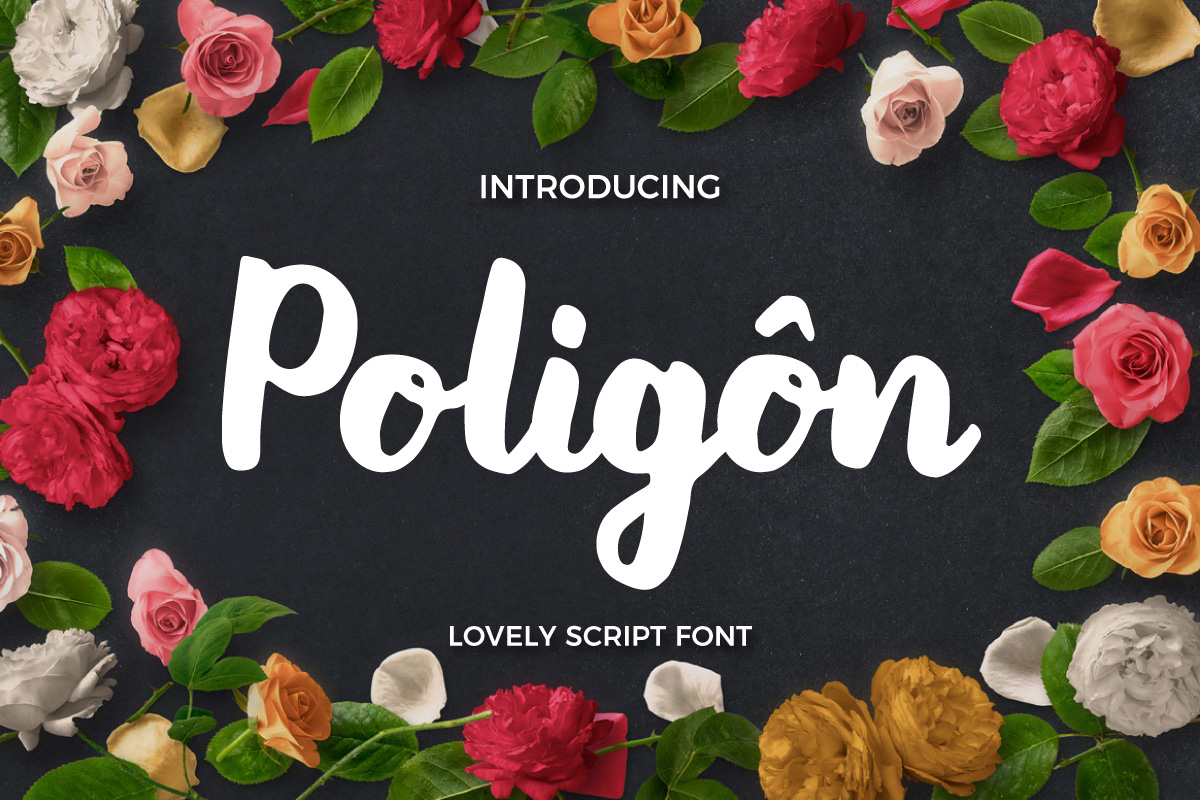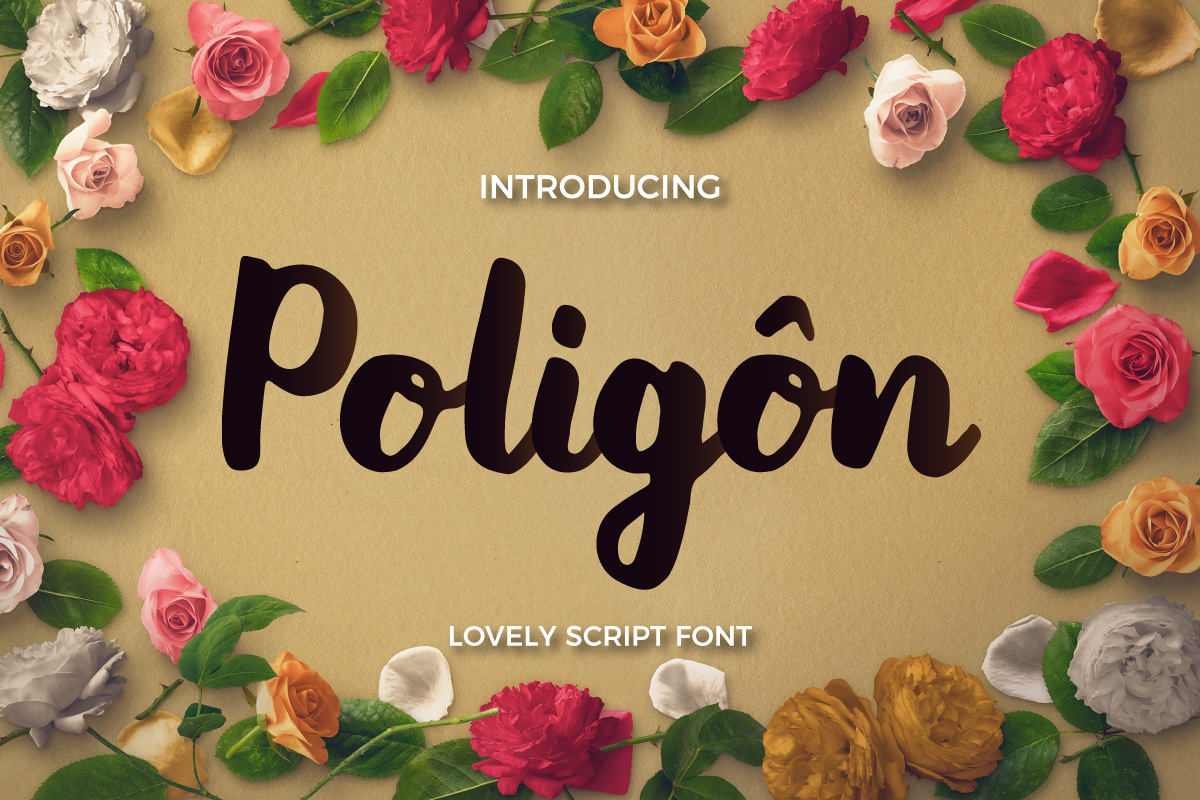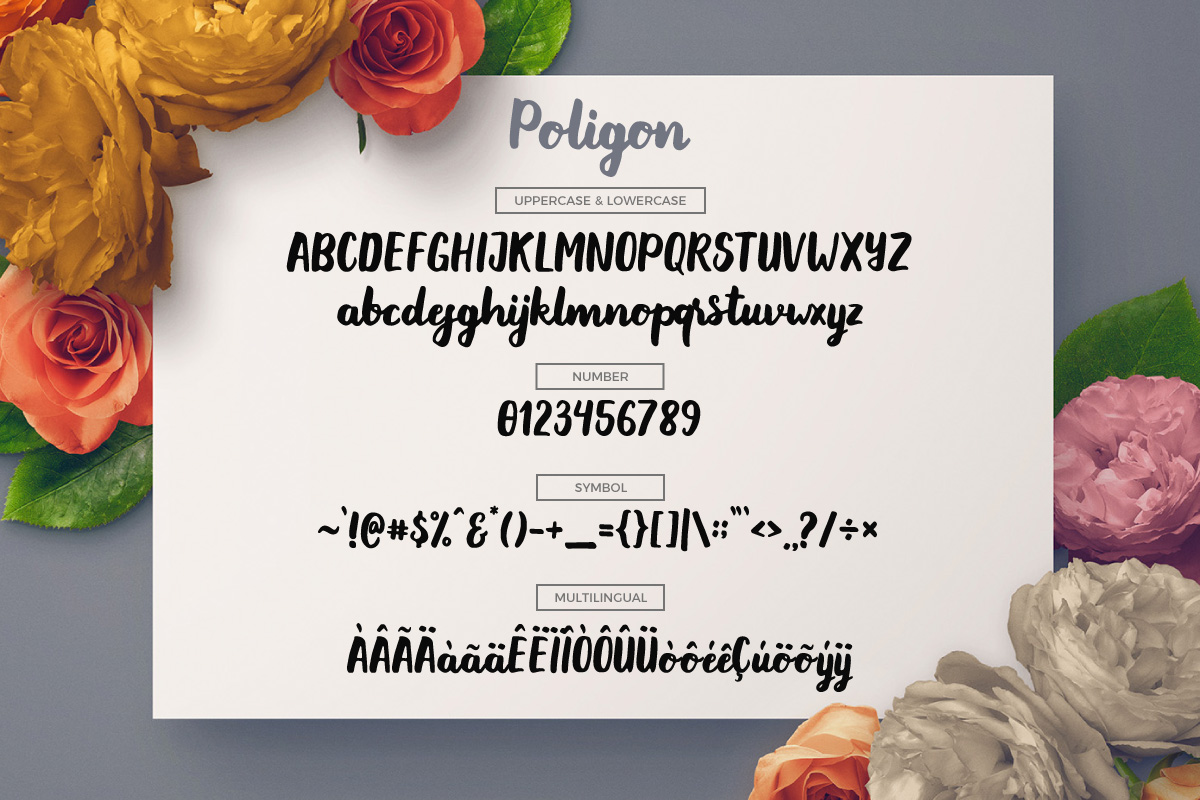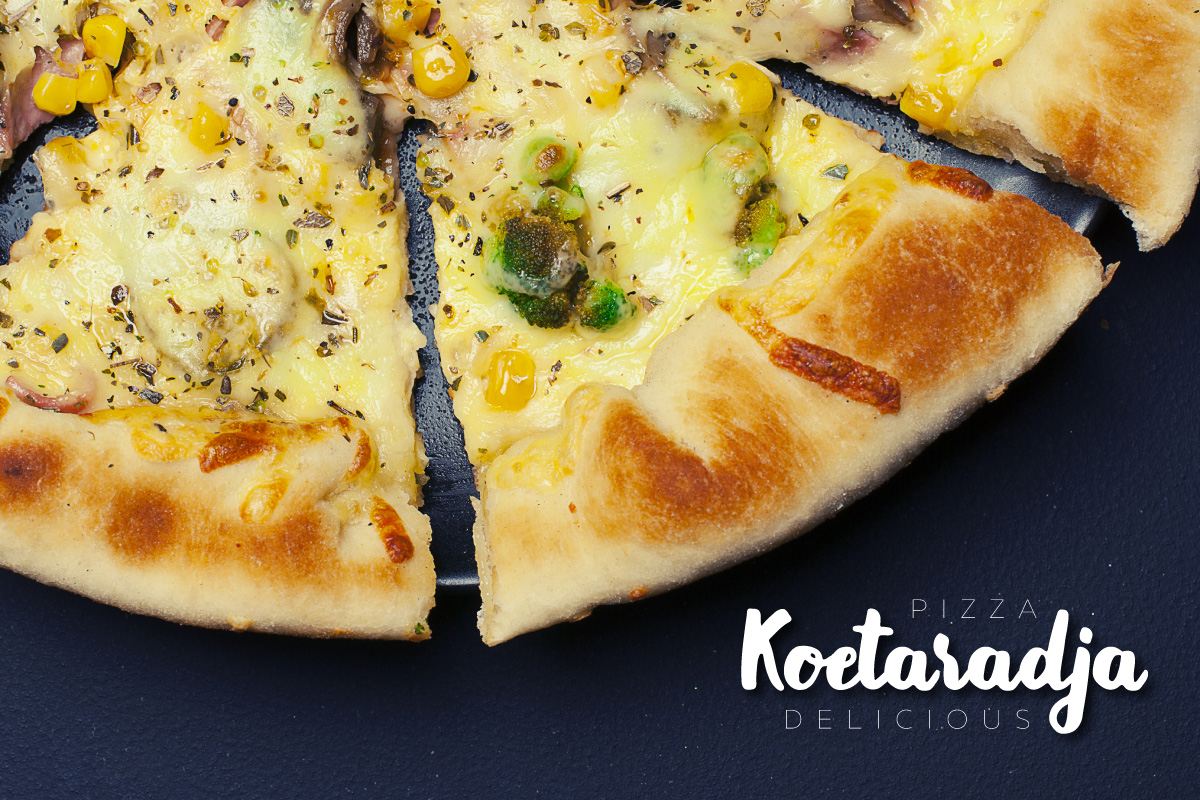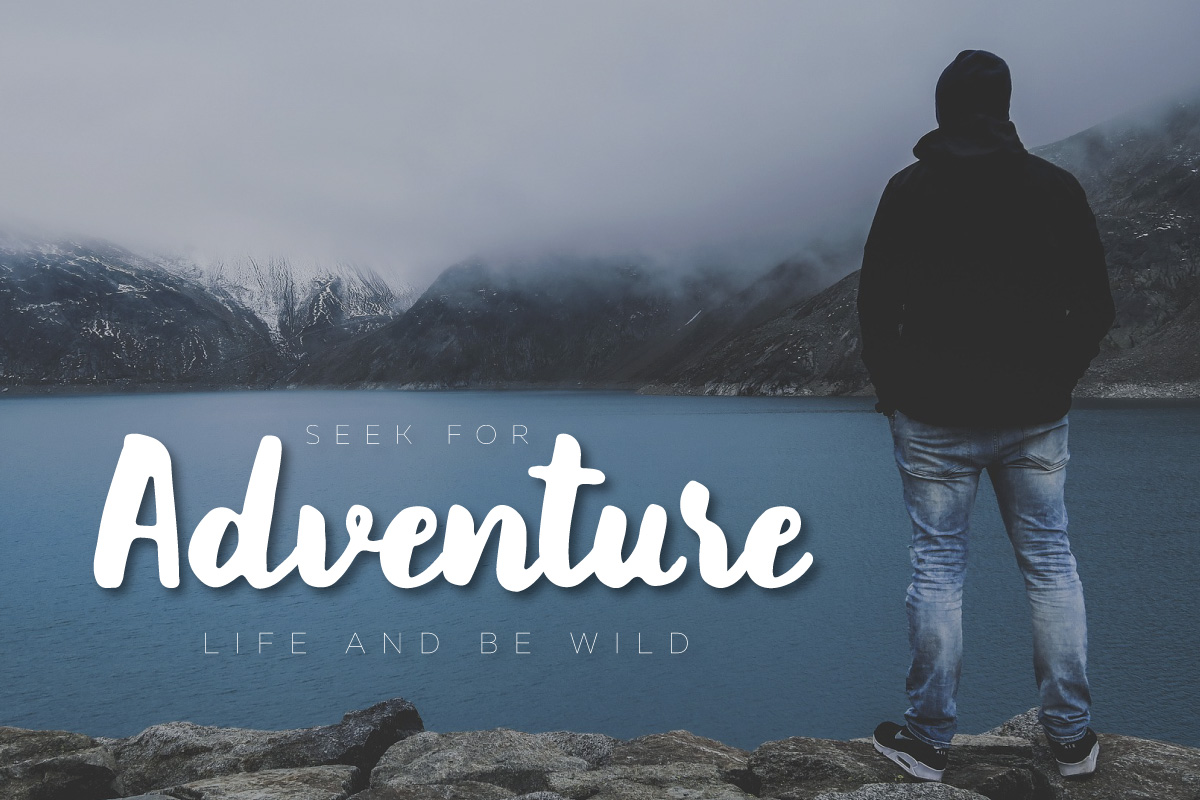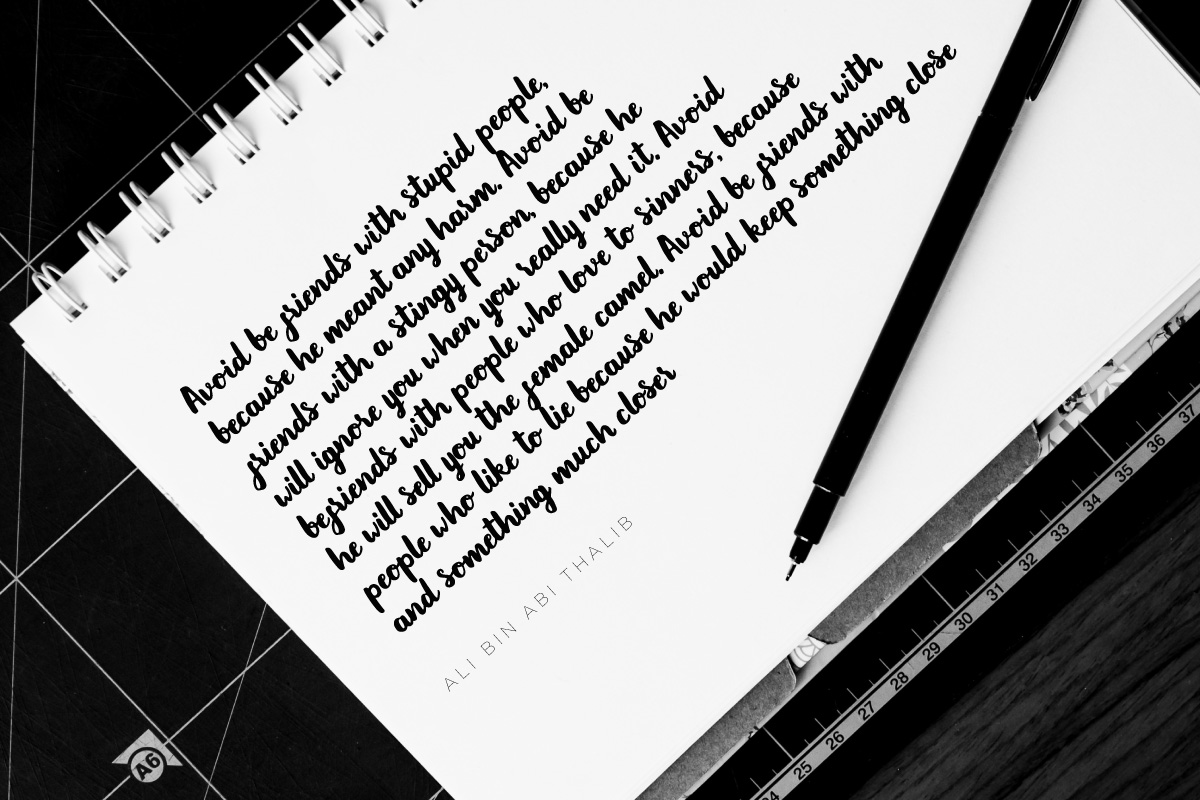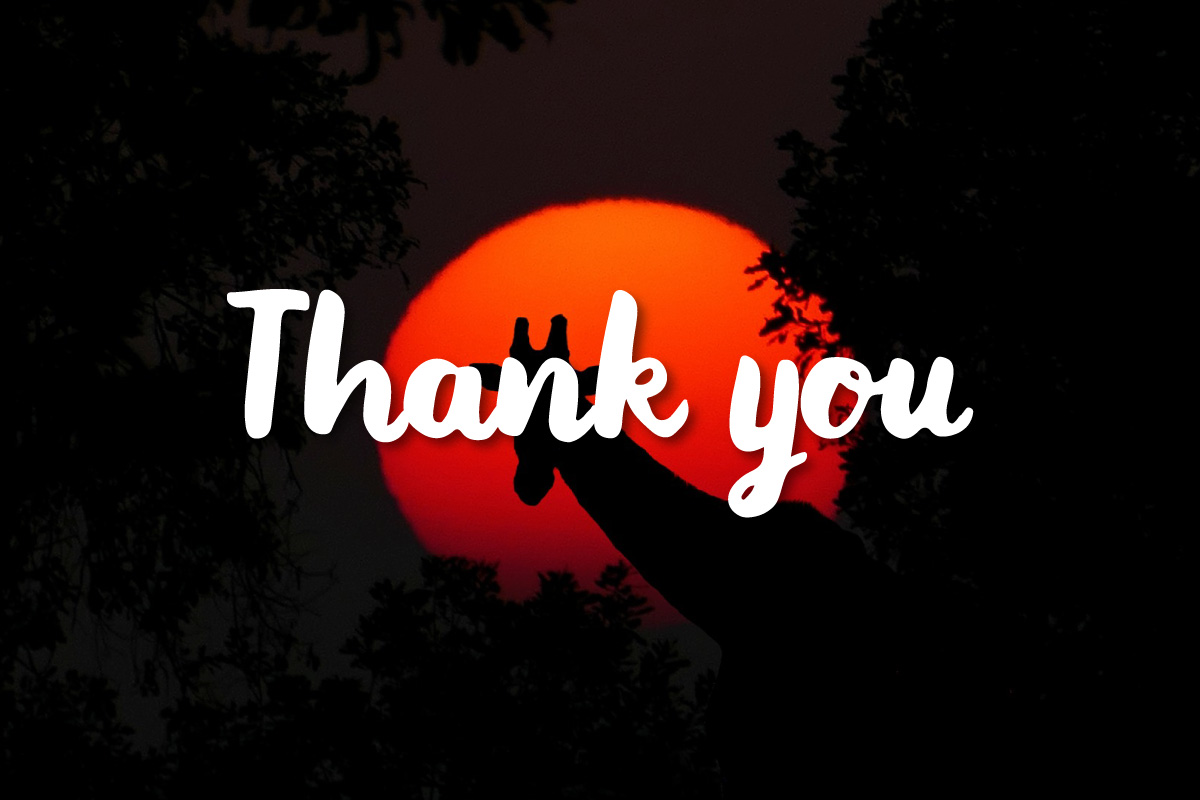
Poligon Font
Poligon is a contemporary brush with a stylish look and feel. It was painted on paper and carefully digitized and optimized.
It can be used for many different projects. It includes main characters in uppercase & lowercase, numbers, punctuation and international support for most Western languages.